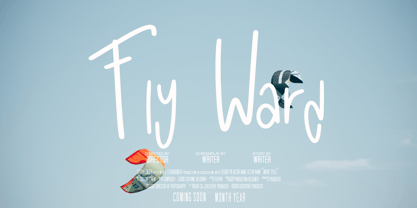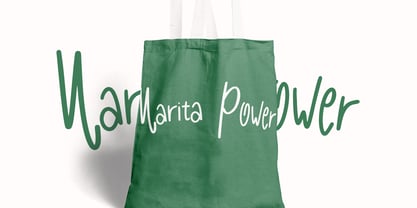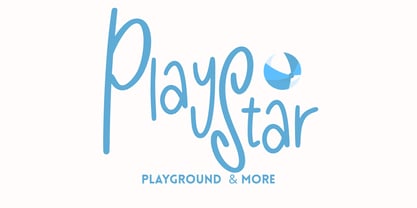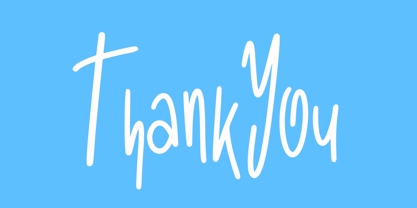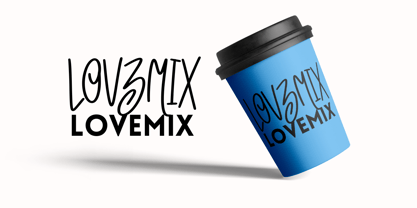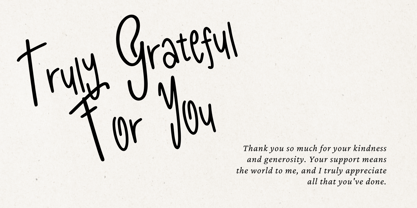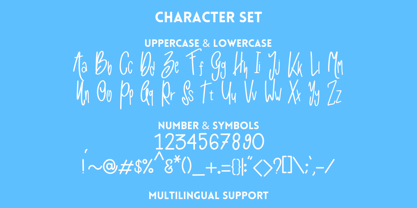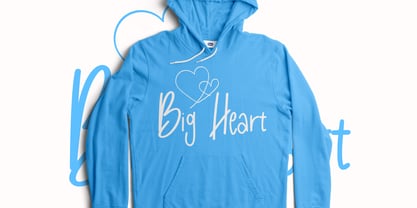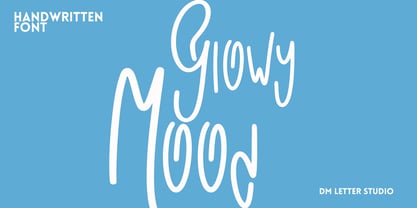
Glowy Mood
by DM Studio
The Glowy Mood Font Family was designed by Dimas Prasetyo and published by DM Studio. Glowy Mood contains 1 styles. More about this family
Introducing Glowy Mood, a charming handwritten font that blends modern elegance with a playful, premium feel. With soft curves and a free-flowing script style, Glowy Mood is perfect for luxury logo design, modern food packaging, and stylish brand identities.
This typeface combines the warmth of hand lettering with a luxury bold presence, making it a standout choice for elegant product branding, upscale food labels, and creative logos that demand personality and sophistication.
Whether you're crafting a trendy café brand, elegant menus, or modern lifestyle packaging, Glowy Mood delivers a signature touch that feels personal, fresh, and high-end.
• Luxury Food Branding – Organic, artisanal, or premium food product packaging
• Modern Logo Design – Clean and personal script for standout identities
• Elegant Invitations & Labels – Stylish handwritten appeal
• Beauty & Lifestyle Brands – Feminine yet bold
• Luxury Bold Quotes – Social media graphics and merch with attitude
🧩 Font Features:
• Handwritten Script Style
• Smooth, Playful Flow
• Uppercase, Lowercase, Punctuation, Numerals
Glowy Mood is not just a font it's an elegant handwriting tool crafted for those who seek luxury in a casual yet confident script. Use it for logos, packaging, signage, or digital branding anywhere your message needs a modern, handwritten touch with bold personality.